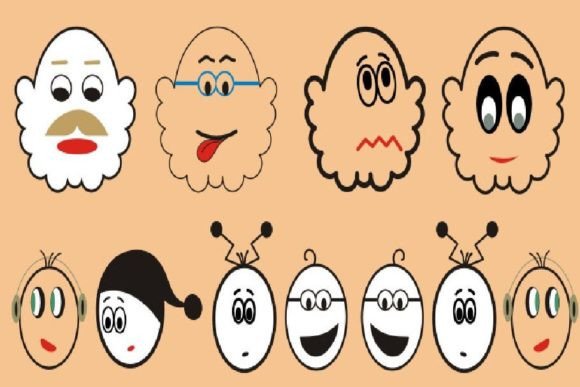
**Introducing Gostosinhos Font: The Enchanting Dingbat Font Family for a Whimsical Comic Adventure**
In a world filled with seriousness, let your imagination soar with Gostosinhos Font, a delightful dingbat font family that transports you to a realm of laughter, mischief, and comical charm. Dive into the captivating adventures of lovable dingbats as they bring vibrancy and humor to every corner of their world, leaving a trail of smiles and joyous laughter in their wake.
**Unleash Your Creative Spirit with Gostosinhos Font**
With Gostosinhos Font, your creative potential knows no bounds. Let your imagination run wild as you weave tales of adventure, comedy, and lighthearted fun. Whether you're a seasoned comic artist or just beginning your creative journey, Gostosinhos Font is your perfect storytelling companion. Its playful and expressive characters bring life to your scripts, adding a touch of whimsy and enchantment to every panel.
**A Dingbat Font Family That's Bursting with Personality**
Gostosinhos Font is a treasure trove of captivating dingbats, each one brimming with personality and charm. From mischievous grins and playful winks to comical expressions and quirky gestures, these lovable characters are sure to steal your heart. Their infectious energy leaps off the page, instantly captivating your audience and drawing them into your comical world.
**Create Comics That Sparkle with Joy and Laughter**
With Gostosinhos Font, every comic you create becomes a vibrant tapestry of laughter and joy. Watch as your characters come alive, their antics and adventures unfolding before your eyes. The font's playful and expressive nature perfectly captures the essence of comic storytelling, allowing you to convey emotions, humor, and excitement with effortless ease.
**A Font Designed for Storytellers with a Passion for Fun**
Gostosinhos Font is the brainchild of Intellecta Design, a team of creative visionaries with a knack for crafting fonts that spark imagination and ignite laughter. Their passion for storytelling shines through in every curve and stroke of Gostosinhos Font, making it the perfect choice for artists, designers, and storytellers who want to share their unique brand of humor and joy with the world.